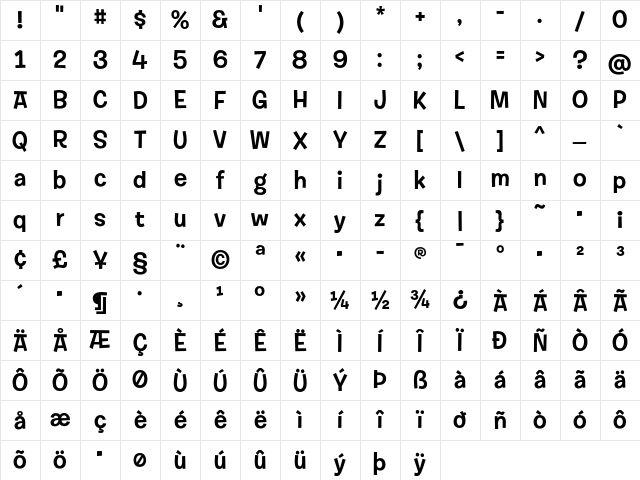
ShagExpert-Lounge Regular
Designer: Tal Leming
Design Context for ShagExpert-Lounge
ShagExpert-Lounge is a composed and adaptable typeface that performs quietly and consistently across a wide range of design contexts.
Pro Tip: Use ShagExpert-Lounge in both headline and body roles to test its range before committing to a single application.